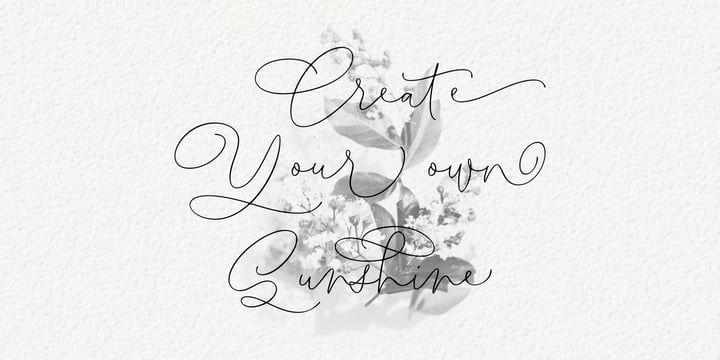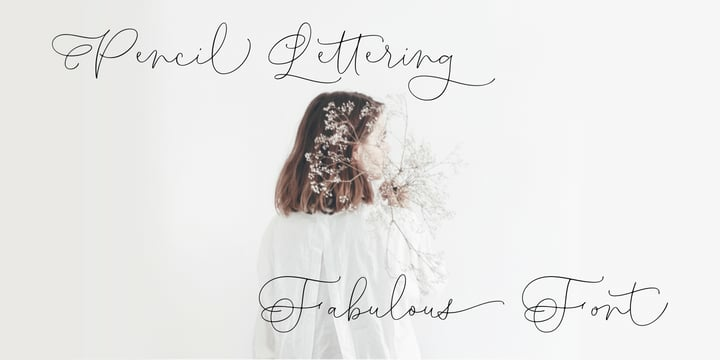
Dear Gray Font
Dear Gray FontDear Gray is a beautiful, feminine, and modern calligraphy script for your wedding designs. Dear Gray includes a full set of uppercase and lowercase letters, numerals, punctuation, and common ligatures for a more harmonious look. With Opentype features and stylistic alternatives, Dear Gray gives you a lot of possibilities to make your design even more special. Following the trend of modern hand-drawn typography, Dear Gray is a friendly choice to convey your loving words.